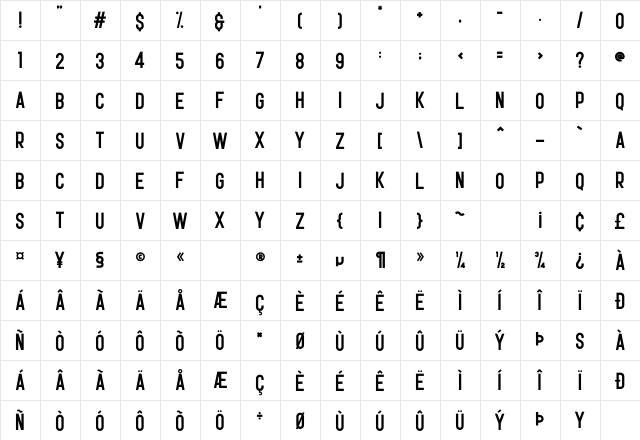
Opera Demo Regular
| Designer | Wahyu Rahmawan |
Design Context for Opera Demo Typeface
Opera Demo takes a measured approach to typography — its balanced proportions and neutral character make it a reliable workhorse for both digital and print work.